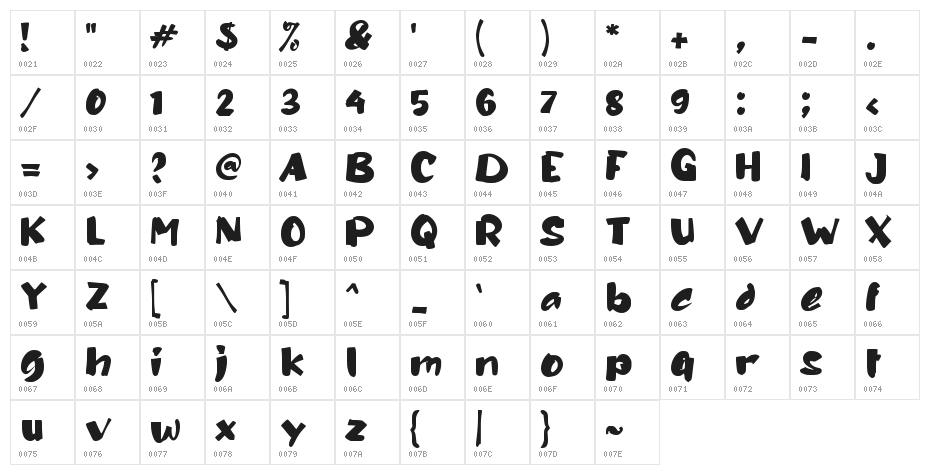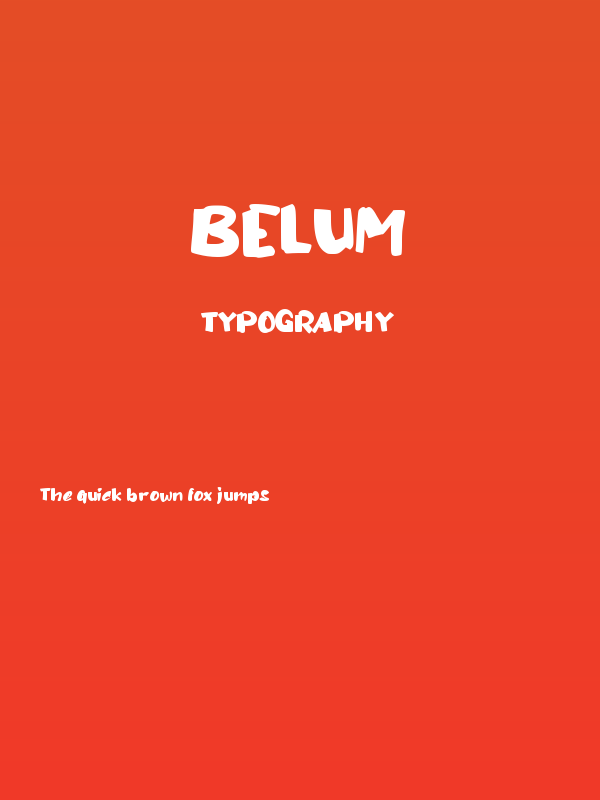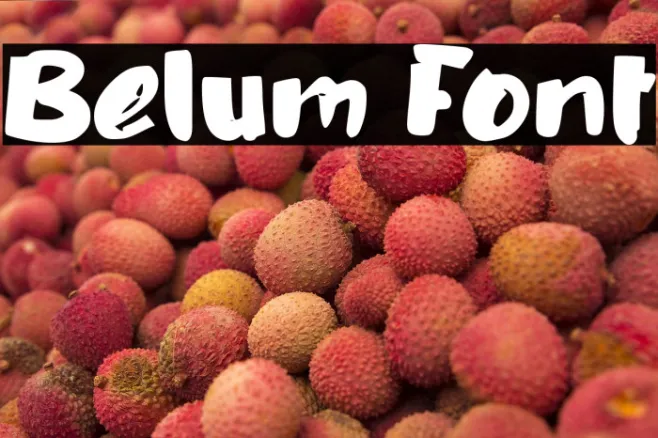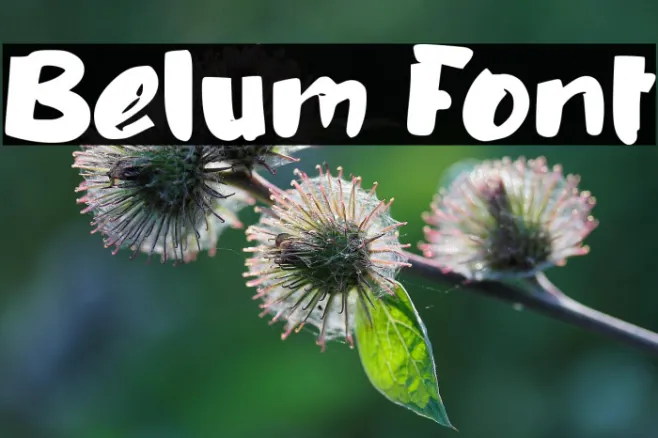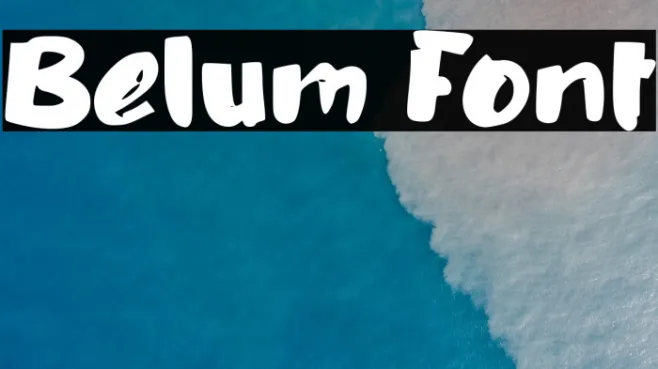
Belum Font
Belum Description
This font features a bold and playful style with a hand-drawn appearance. The letters are thick and rounded, giving a sense of energy and movement. The uppercase and lowercase letters maintain a consistent style, with a slightly irregular baseline that adds to the casual and informal feel. The numbers and special characters follow the same bold and dynamic design, making them stand out. This font is ideal for projects that require a fun and engaging look, such as children's books, posters, or branding for playful products.
BELUM UPPERCASE
BELUM LOWERCASE
BELUM OTHER CHARS
| Proposed Projects | Ideal for children's books, playful branding, posters, and casual invitations. |